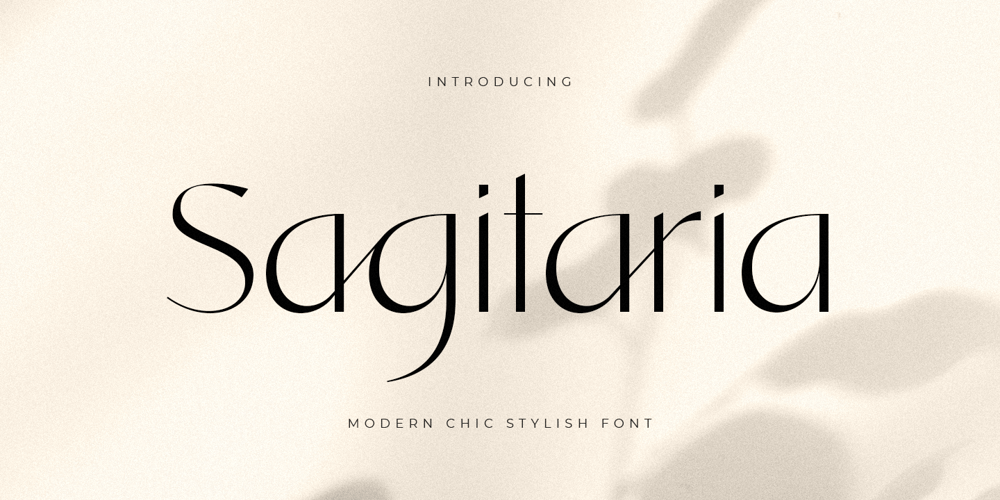
Sagitaria
Sagitaria font
Sagitaria Font Family was designed by Zamroni Hamzah and published by Sensatype Studio. Sagitaria contains 1 styles and family package options. Santiago is A Modern Chic Stylish font that special crafted with love to make your brand standout.A new font that we created special for branding needs, with unique characters and awesome ligature characters are ready to add value of your brand. It so nice to leverage designer or product owner that need solutions to make their design look more beauty, chic and modern. And specially for Santiago font, We prepared any ligature characters to help you create unlimited variations for your creative needs.Sagitaria Modern chic font ready with: Any options to get creative variations (combination of Ligature) Preview as a inspirations that you can do with Sagitaria font Ready with Lowercase and Uppercase characters Wish you enjoy our font. 🙂